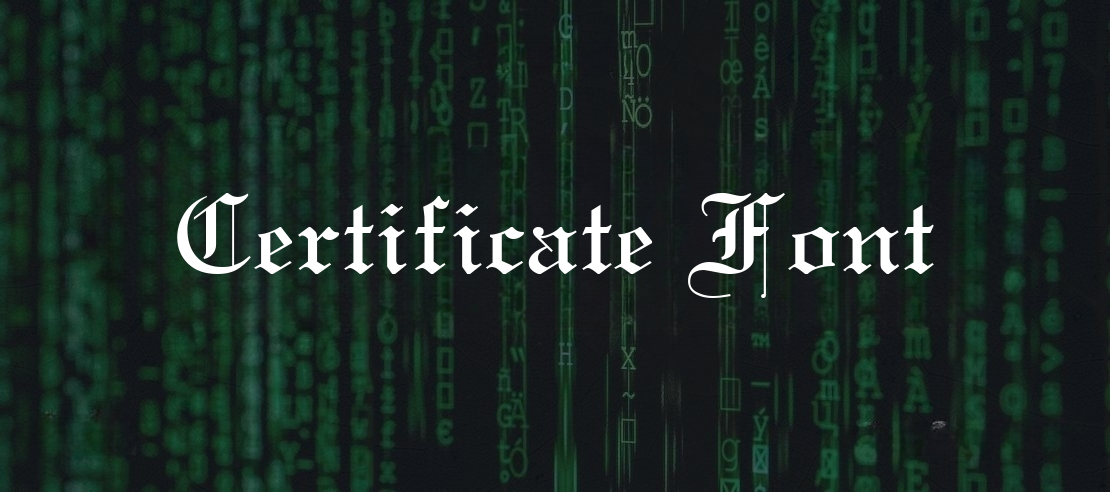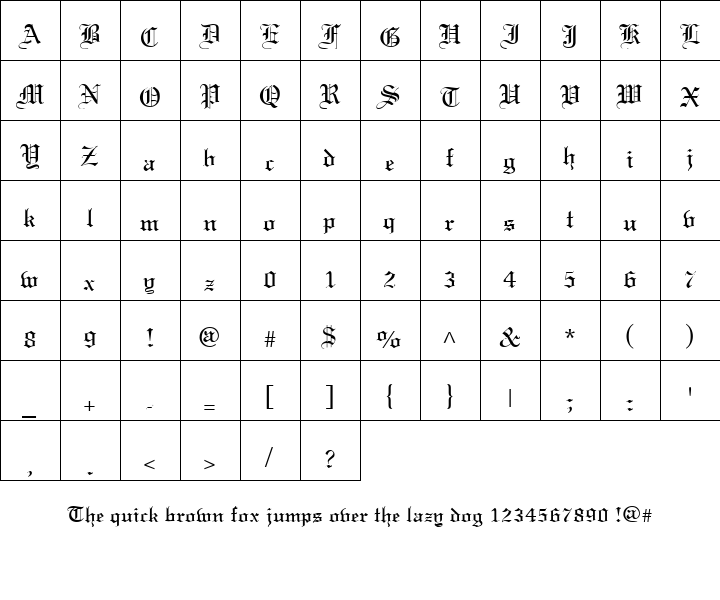
Certificate Font is a calligraphy typeface member of the script family which has an outstanding stylish and stunning texture. SWFTE International take the charge for the first time to release and design this beautiful typeface. this is one of the best typefaces for any amazing design like Old London Font.
This wonderful font has a fashionable typeface, which looks similar to the brand logos and newspapers, which had been used from the 1920s to 1960s. and the designer picks inspiration from those styles. Moreover, you can say this is a legendry texture. This outstanding typeface should use in those places where an urgent and unique design. Which increases the value of the best design all over in the marketplace.
This is one of the best and amazing typefaces for your stunning and deco ratable design that may be the title of Certificates, transcript, Diploma title design, a decorative wedding card, party cards, book covers, invitation cards, designing over T-shirts, writing over Jackets, Gift packing, movies titles, television show, song titles, web page titles, and many more.
This professional and amazing font style has been designed by a well-known font-making foundry named SWFTE. They have also designed many of the famous fonts that are used in the majority of designs and projects.
What is the font used in Certificates?
This font keeps your certificates traditional and readable, which seem more modern and beautiful. So, feel free to use this texture for designing your certificates. You may also use Olde English Font.
Can I use Certificate font for my website?
This texture has a very beautiful look on the title, you may use it in your website’s title to make it more attractive.
Can I use Certificate font for the logo?
This typeface has an outstanding result while used in Logos, so yes u can use this font for better results.